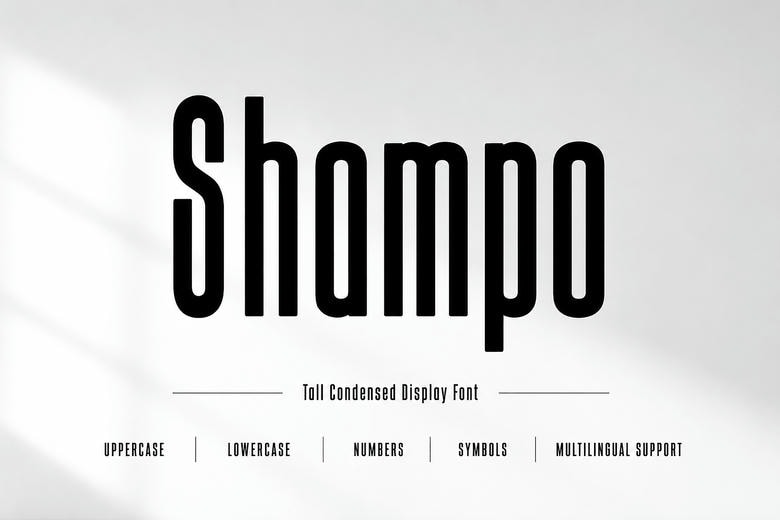
Shampo Font
Shampo is a tall, bold, and modern display font that grabs attention. Its clean lines and strong vertical style give it a fresh, contemporary look. It’s a great choice for designers who want to create standout headlines, fashion branding, editorial layouts, posters, packaging, logos, or streetwear designs.
Its sleek and confident appearance gives your work a premium, modern feel, and it stays easy to read even at large sizes. For brand identity, magazine covers, promotional campaigns, or product packaging, Shampo provides the striking presence needed to stand out.
Shampo Display Font